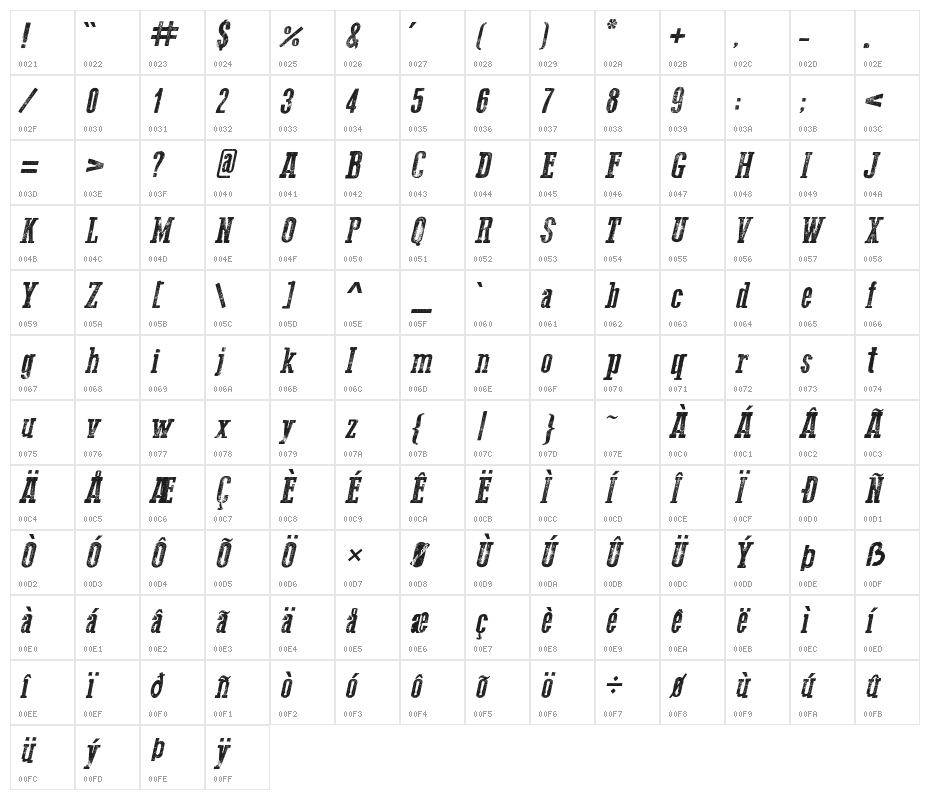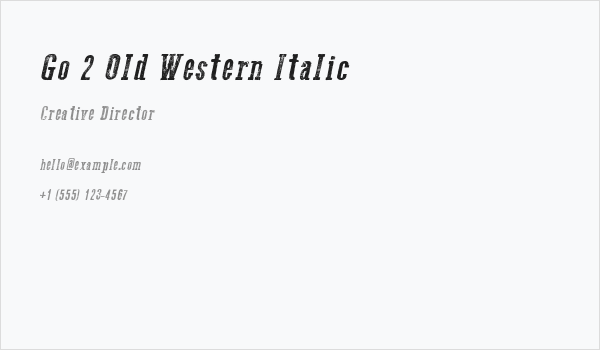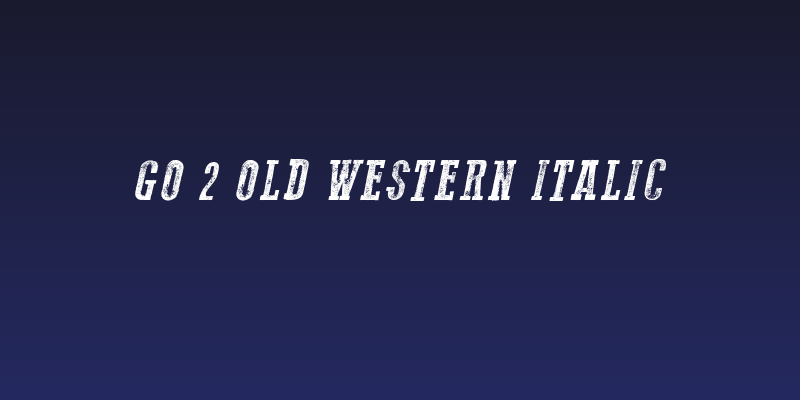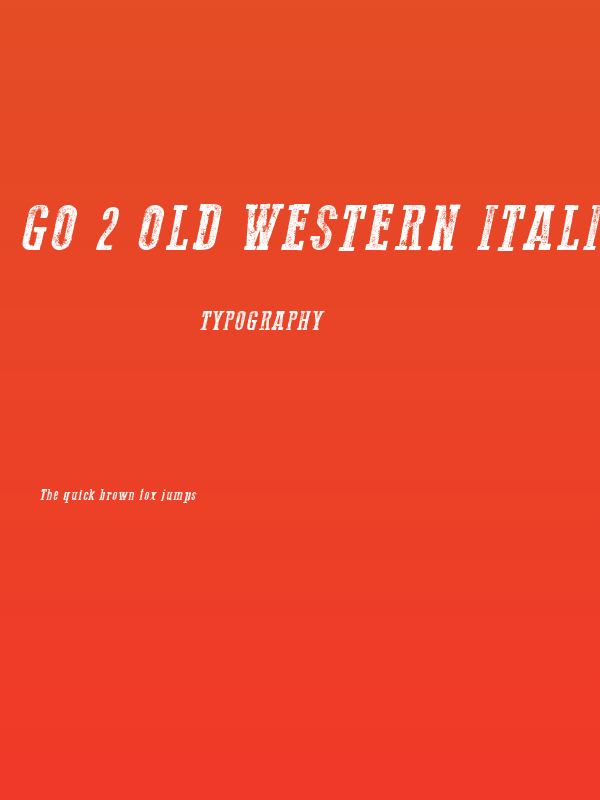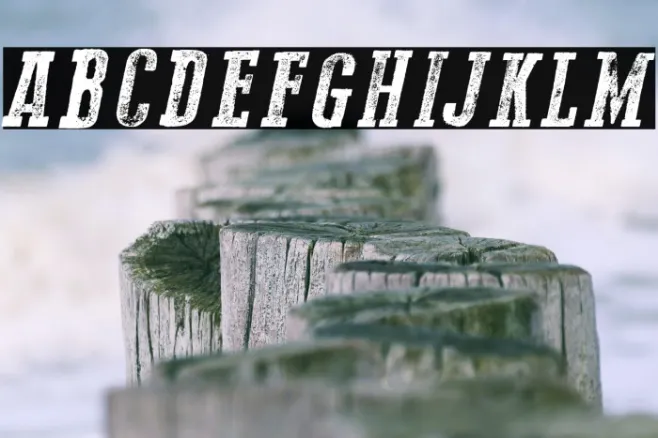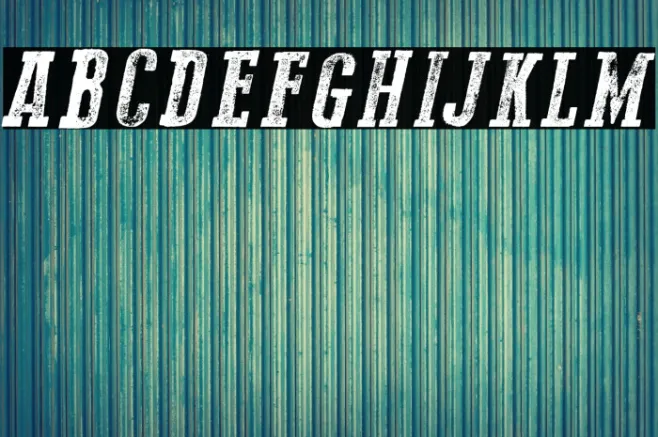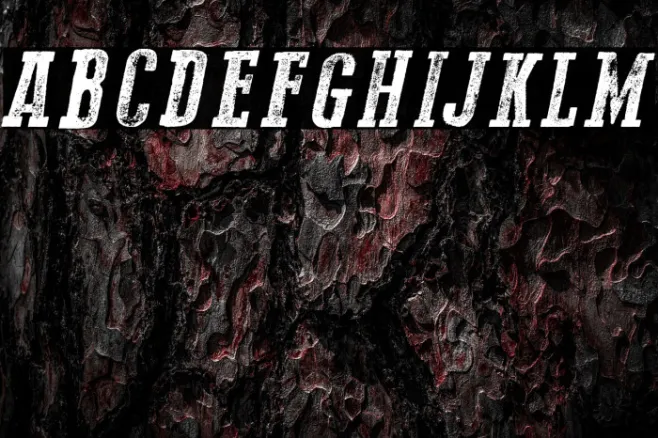
Go 2 Old Western Italic Font
Go 2 Old Western Italic Description
This font embodies a rugged, vintage aesthetic reminiscent of the Old West. The characters are bold and italicized, featuring a distressed texture that gives them a weathered, antique appearance. The uppercase and lowercase letters maintain a consistent style, with sharp serifs and a slight slant that adds dynamism. The numbers and special characters follow the same design principles, ensuring uniformity across all glyphs. This font's unique style makes it ideal for projects that require a touch of nostalgia or a rustic, frontier feel.
| Proposed Projects | Ideal for posters, branding, and themed event materials that require a vintage or Western aesthetic. |